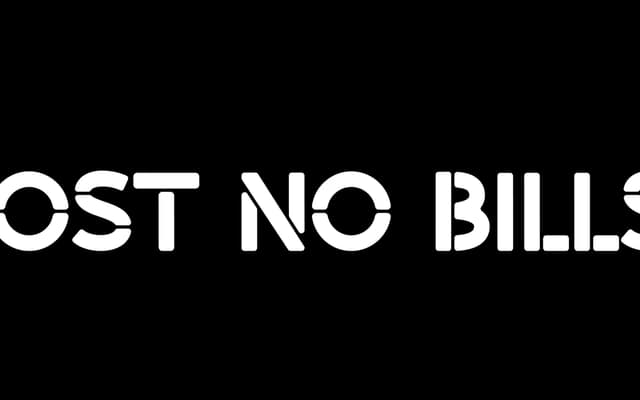
Post No Bills
A block stencil face with deliberate roughness and imperfection, drawn from urban signage and street typography.
Built on simple, blocky letterforms, Post No Bills introduces grit and irregularity that stop it reading as a clean geometric stencil. The imperfections are intentional, giving the face the kind of wear associated with hand-cut stencils or city street markings. Best suited to display use where a raw, urban character is called for.
A block stencil typeface with deliberate urban roughness; the stencil construction and imperfect letterforms place it firmly in display territory.